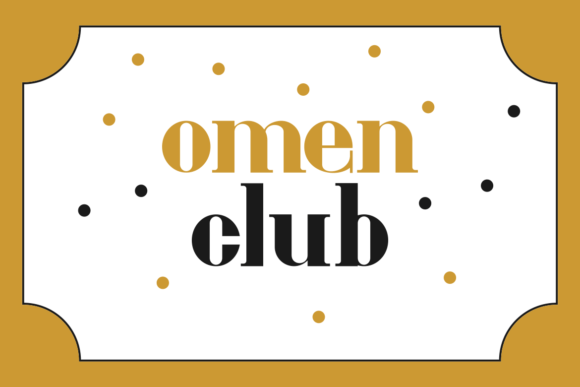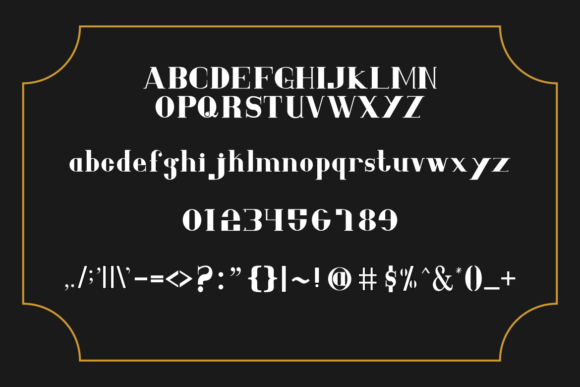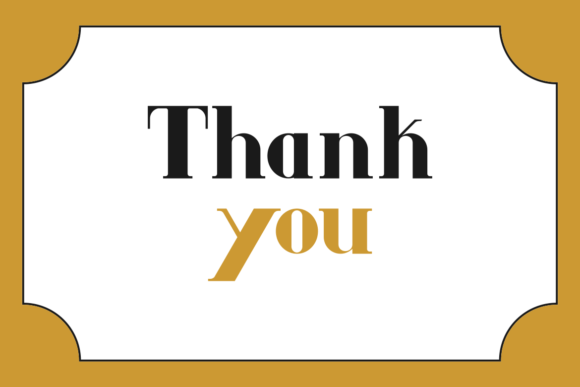
Dolif Fifin Font: The Perfect Choice for Designers and Crafters
In the world of design, a font can make all the difference in creating a visually appealing and effective visual identity. For designers, crafters, and DIY enthusiasts, finding the right font can be a daunting task. However, if you’re looking for a bold and authentic display font, look no further than Dolif Fifin. In this article, we’ll explore the features and benefits of Dolif Fifin, and why it’s the perfect choice for your next design project.
What is Dolif Fifin?
Dolif Fifin is a bold and authentic display font designed to make a statement. With its unique and eye-catching design, it’s perfect for a variety of applications, including crafting, digital designing, presentations, and greeting card making. Whether you’re a professional designer or a DIY enthusiast, Dolif Fifin is a versatile font that can help you create stunning visuals.
Key Features of Dolif Fifin
- Bold and Authentic Design: Dolif Fifin boasts a bold and authentic design that grabs attention and makes a statement.
- Versatility: This font is perfect for a variety of applications, including crafting, digital designing, presentations, and greeting card making.
- High-Quality Design: The font is designed with high-quality and precision, ensuring that it looks great in any size or format.
Benefits of Using Dolif Fifin
So, why choose Dolif Fifin for your next design project? Here are some benefits of using this amazing font:
- Stand Out from the Crowd: With Dolif Fifin, you can create unique and eye-catching designs that stand out from the crowd.
- Professional-Looking Designs: The font’s bold and authentic design gives your designs a professional look, making it perfect for presentations, business cards, and other marketing materials.
- Easy to Read: Despite its bold design, Dolif Fifin is easy to read, making it perfect for body text and headings.
- Time-Saving: With Dolif Fifin, you can create stunning designs in no time, saving you time and effort.
Use Cases for Dolif Fifin
Dolif Fifin is a versatile font that can be used in a variety of applications, including:
- Crafting: Use Dolif Fifin to create stunning craft projects, such as handmade cards, scrapbooking, and DIY decorations.
- Digital Designing: The font is perfect for digital designing, including social media graphics, blog posts, and website headers.
- Presentations: Use Dolif Fifin to create engaging and professional-looking presentations that grab your audience’s attention.
- Greeting Card Making: Create stunning greeting cards for special occasions, such as birthdays, weddings, and holidays.
In conclusion, Dolif Fifin is a bold and authentic display font that’s perfect for designers, crafters, and DIY enthusiasts. With its unique design, versatility, and ease of use, it’s an excellent choice for a variety of applications. Whether you’re creating stunning craft projects, digital designs, presentations, or greeting cards, Dolif Fifin is the perfect font to help you make a statement. So, why wait? Download Dolif Fifin today and take your designs to the next level!
- What is Dolif Fifin?: Dolif Fifin is a bold and authentic display font designed for crafting, digital designing, presentations, and greeting card making.